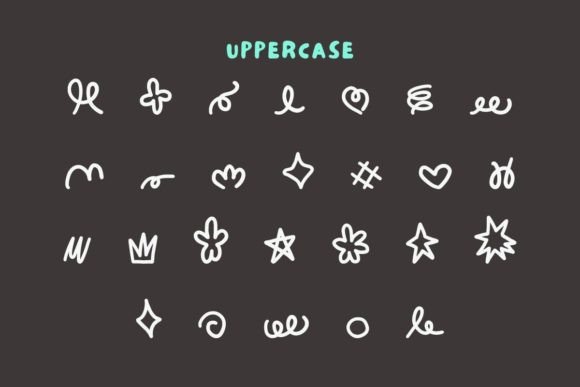
Introduction to Doodle Line Font Font
Fonts play a crucial role in design, and the Doodle Line Font font is a typeface that brings both character and versatility to any project. Whether you’re working on a branding project, a website, or a print design, the Doodle Line Font font offers a unique style that can elevate your work.
Doodle line is a cute dingbats font that is suitable for various projects such as advertising posts, invitations, greeting cards, photo albums, and decorations, or can also be used to decorate crafts, bags, glasses, childrenβs book covers, and also others, Add to one your design and enjoy the results.
Doodle line is a cute dingbats font that is suitable for various projects such as advertising posts, invitations, greeting cards, photo albums, and decorations, or can also be used to decorate crafts,
Key Features of Doodle Line Font Font
Why Choose Doodle Line Font Font?
The Doodle Line Font font is more than just a typeface β it’s a design tool that helps you communicate your message with style and clarity. Its unique character set and versatile design make it suitable for a wide range of applications, from elegant invitations to bold headlines.
With its carefully crafted letterforms and balanced proportions, the Doodle Line Font font ensures readability and visual appeal across all mediums.
What makes Doodle Line Font font special?
The Doodle Line Font font stands out with its unique design, exceptional readability, and versatility across various design applications.